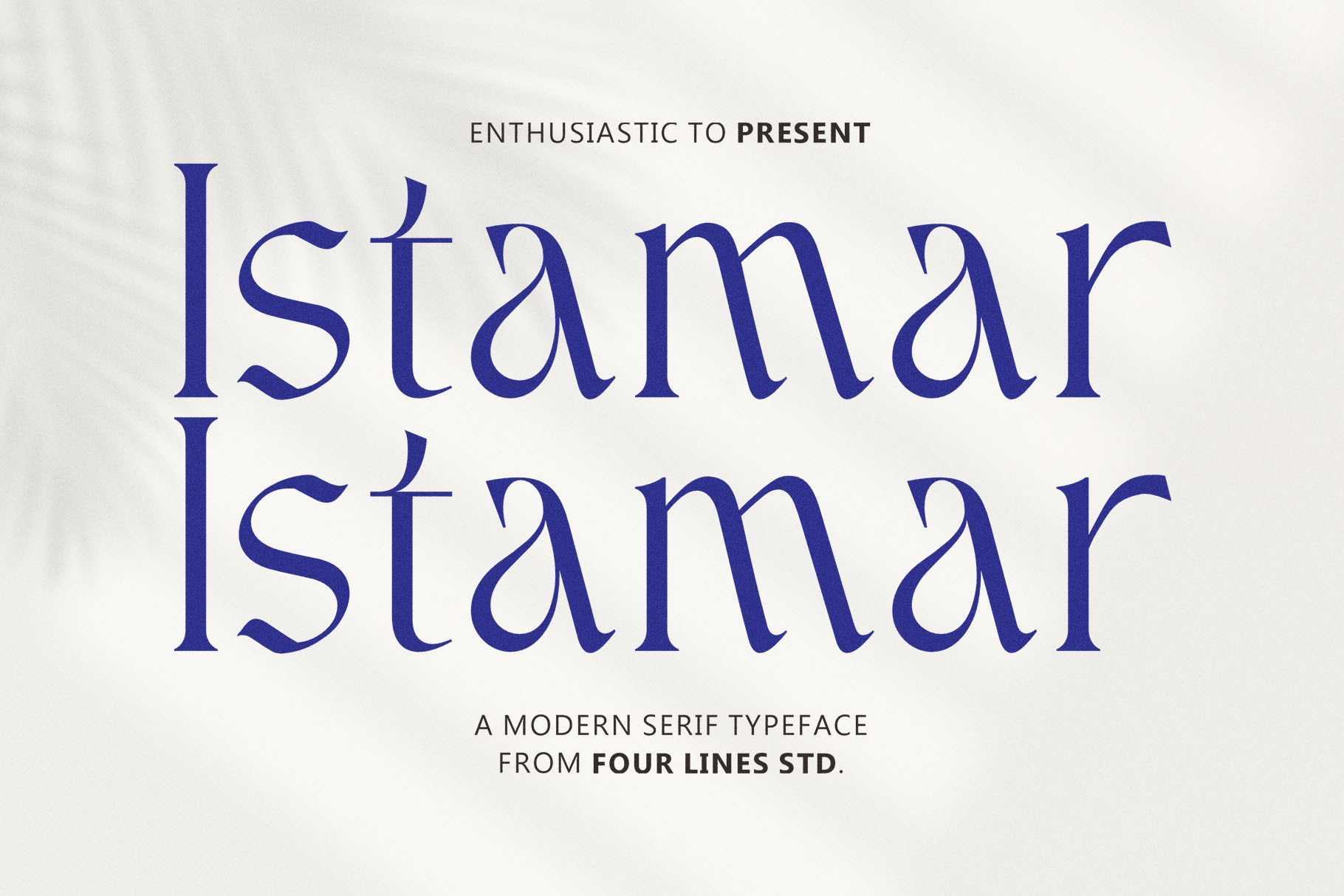
Istamar - Elegant Serif Font
Introducing Istamar, a modern serif font that elegantly combines grace and timeless charm. Its opulent and refined characters are meticulously crafted for branding endeavors in any project. What’s included: - OTF - TTF - WOFF